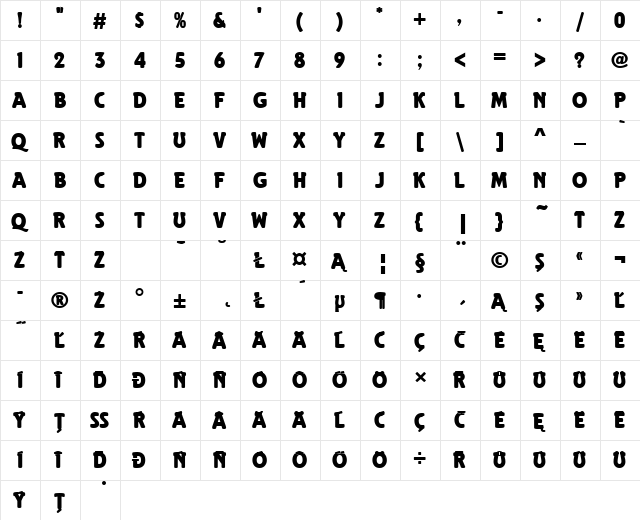
ElefontPEE Regular
Design Context for ElefontPEE Typeface
ElefontPEE offers clean, dependable letterforms without strong stylistic allegiance, making it a practical choice for designers who need flexibility.
Pro Tip: Use ElefontPEE in both headline and body roles to test its range before committing to a single application.